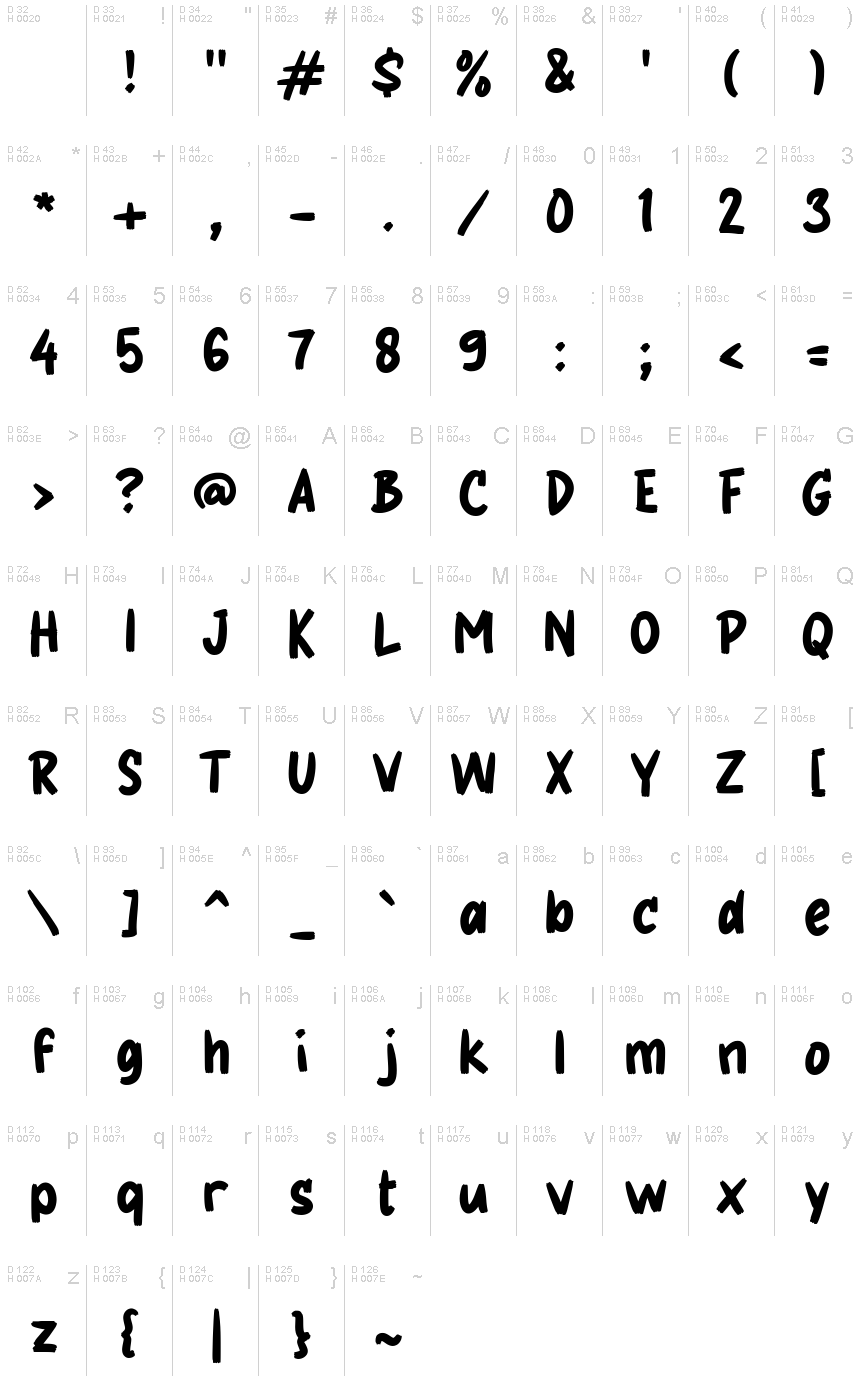
Goal
The Goal font, crafted by the talented designer wep, exudes a dynamic and captivating brush-like aesthetic. Its bold strokes and energetic curves create a sense of movement and vibrancy, making it a standout choice for projects that require a powerful and expressive typographic presence. The font's unique character infuses any design with a sense of passion and determination, captivating the audience and leaving a lasting impression.
This versatile font can elevate a wide range of design projects, from eye-catching headlines and impactful branding to dynamic packaging and attention-grabbing advertisements. Its bold and assertive personality lends itself well to projects that aim to convey a sense of strength, confidence, and ambition, making it an excellent option for various creative endeavors.